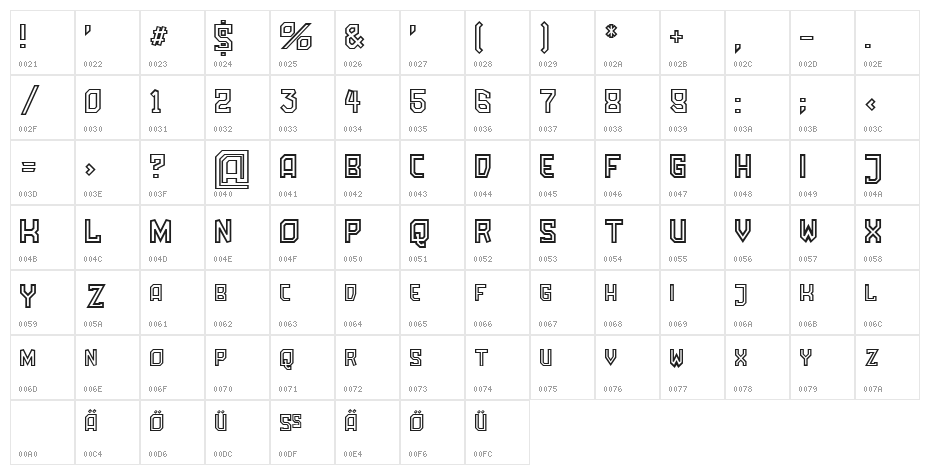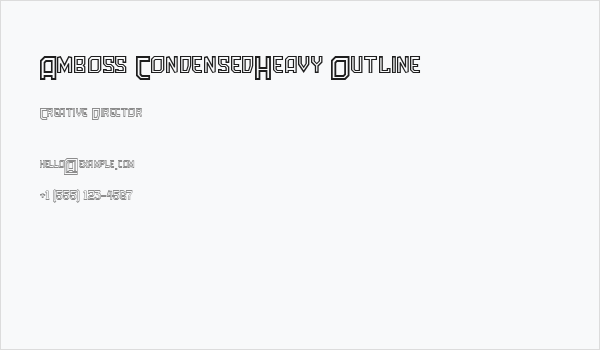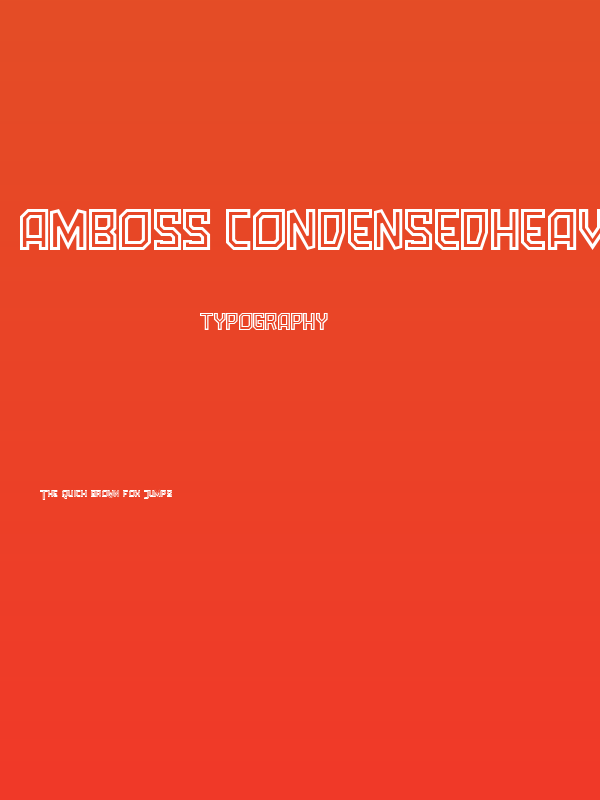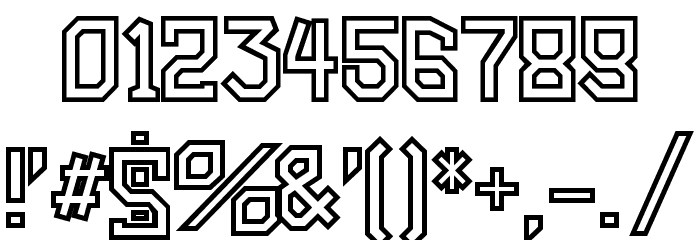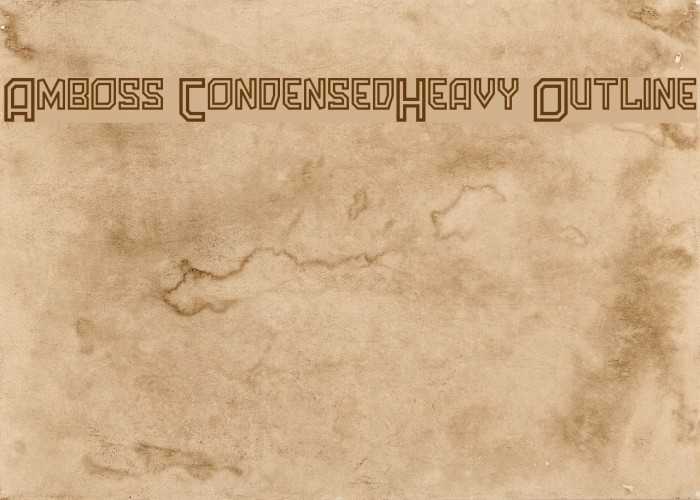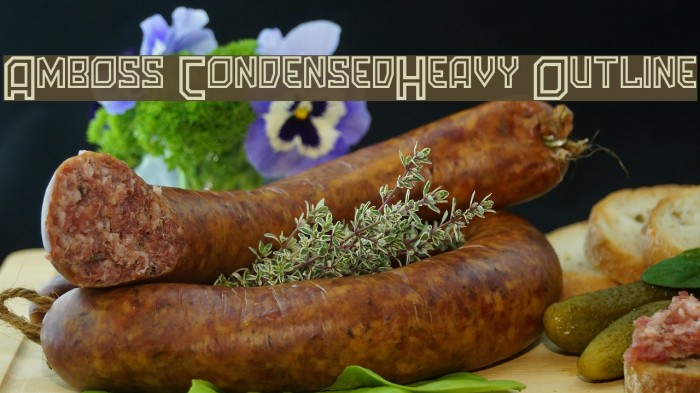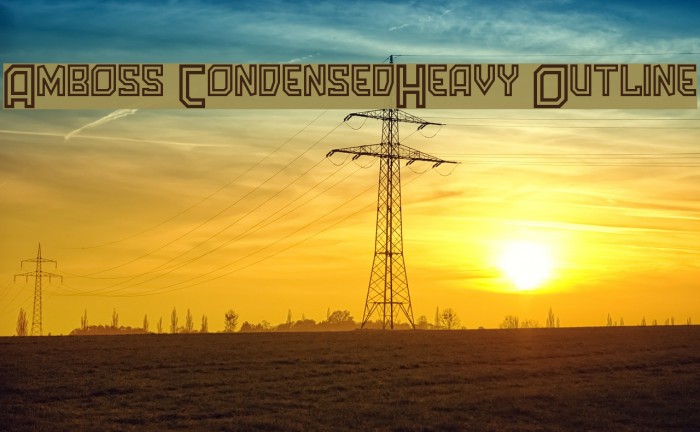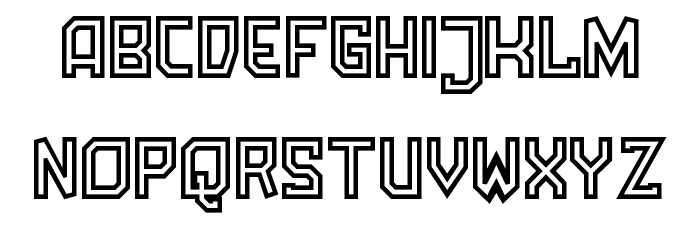
Amboss CondensedHeavy Outline Font
Amboss CondensedHeavy Outline Description
This font features a bold, geometric style with a distinct outline that gives it a three-dimensional appearance. The characters are condensed, creating a compact and impactful look. Each letter is crafted with sharp angles and straight lines, contributing to a modern and industrial aesthetic. The uppercase and lowercase letters maintain a consistent design, ensuring uniformity across text. Numbers and special characters are designed with the same bold outline, making them stand out effectively. This font is ideal for projects that require a strong visual presence and a contemporary feel.
| Proposed Projects | Ideal for branding, posters, headlines, and any design needing a strong, modern impact. |